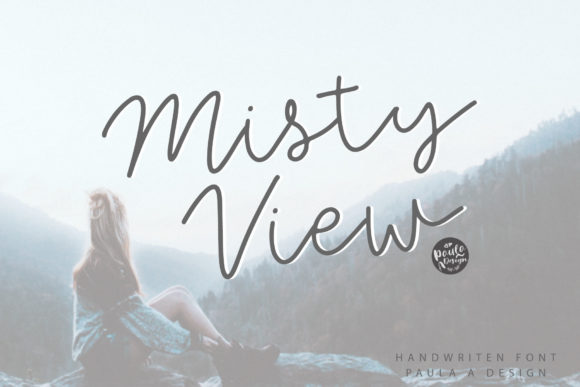
Welcome to the world of Misty View, a chic and simple script font crafted to captivate your senses. Step into a realm of elegance and style, where your designs will blossom with an exquisite handwritten touch. Let Misty View elevate your branding, social media presence, or personal projects to new heights of sophistication.
Whether you're a seasoned designer or just starting to explore the art of typography, Misty View will effortlessly enhance your creative endeavors. Its graceful letterforms, reminiscent of a gentle breeze, will add a touch of charm and uniqueness to your projects. Discover the beauty of handwritten elegance as you effortlessly craft captivating logos, eye-catching social media posts, breathtaking invitations, and more.
With its versatile style, Misty View effortlessly adapts to a myriad of projects. Let your imagination soar as you create stunning branding materials that reflect your brand's unique personality. Design whimsical wedding invitations that capture the essence of romance and joy. Create captivating posters and flyers that demand attention with their elegant charm. Elevate your social media game with eye-catching posts that resonate with your audience.
Join the ranks of discerning designers who have discovered the magic of Misty View. Embrace its effortless elegance and watch your creative visions come to life. Let Misty View be your artistic muse and embark on a journey of visual enchantment.